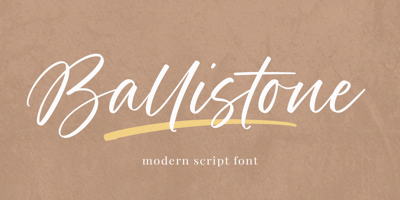
Ballistone
Ballistone font
Ballistone Font Family was designed by Wara Sigit Tri Pamungkas and published by Timurtype. Ballistone contains 1 styles and family package options. Introducing by Timur typeProudly Present, Ballistone A Handwritten Script FontBallistone is perfect for product packaging, branding project, megazine, social media, wedding, or just used to express words above the background.This Ballistone font includes:-Full Set of standard alphabet and punctuation & symbol-Extra set ligature & underline-multilingual support.Embelish your designs with our original fonts.Enjoy the font,Thank you!